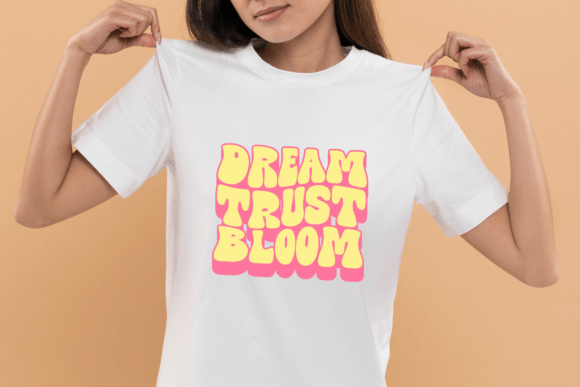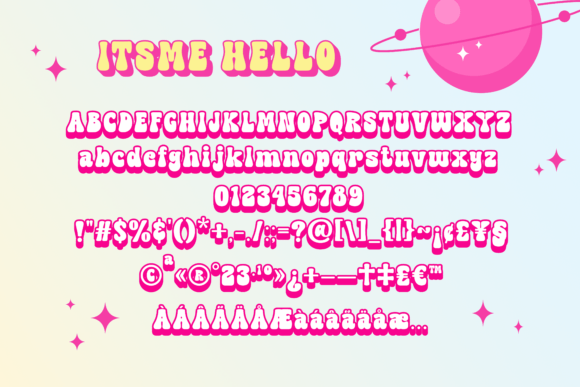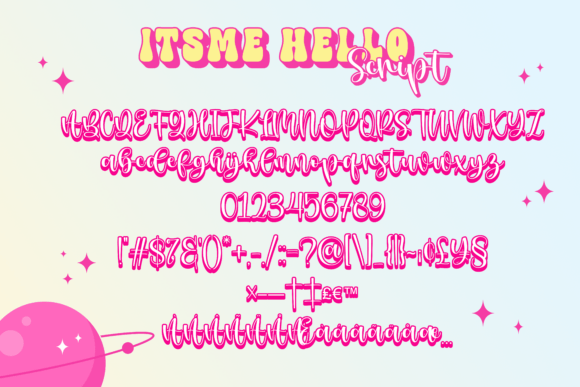
Introduction to Itsmehello Regular Font
As a designer, there’s nothing quite like that moment when all the elements of a creative project come together in perfect harmony. The color palette is spot on, the typography is on point, and the overall aesthetic is nothing short of stunning. And, of course, a high-quality font plays a huge role in achieving that magic. That’s where the Itsmehello Regular Font duo comes in – a dynamic pairing of a bold display font and an elegant script font that’s sure to elevate your designs to the next level.
Whether you’re working on a free download project or a paid design resource, the Itsmehello Regular Font is an invaluable asset in your design arsenal. With its bold, chunky style and elegant script aesthetic, this font duo offers a level of versatility that’s hard to find in a single font. Plus, with PUA encoding included, you can rest assured that your designs will look their best on any transparent background.
Key Features of Itsmehello Regular Font
- High-quality design suitable for creative projects, including logos, graphics, and other visual elements.
- Features a transparent background, allowing for easy integration with various design elements and backgrounds.
- Designed with a unique and modern aesthetic, making it an ideal choice for designers looking to add a touch of elegance to their creative projects.
- Resolution: Optimized for high-resolution displays, ensuring crisp and clear text rendering.
- Size: Includes multiple font sizes and weights, providing designers with flexibility and control over the design.
Honest Review: Itsmehello Regular Font
I recently had the opportunity to work with the Itsmehello Regular Font, and I must say it’s been a great addition to my design resources. As a designer, I’m always on the lookout for high-quality fonts that can elevate my creative projects.
Here are some things that work well with the Itsmehello Regular Font:
- ✨ High-quality glyphs and clear letterforms make it perfect for body text.
- ✨ Itsmehello Regular Font has a transparent background, allowing for seamless integration into any design project.
- ⚠️ The font is only available in a single weight, which may limit its versatility in certain design contexts.
- ⚠️ The Itsmehello Regular Font may not be the best choice for complex, multi-line typography due to its simplicity.
Overall, I’m impressed with the Itsmehello Regular Font and would recommend it to designers working on simple to moderate complexity projects. Its high-quality design and free download make it a valuable resource for any design project.
How to Use Itsmehello Regular Font
The Itsmehello Regular Font is a high-quality design resource available for free download. It’s perfect for adding a unique touch to your creative project.
Getting the Most Out of It
To get the most out of the Itsmehello Regular Font, use it in combination with other design elements to create a visually appealing and cohesive design. Experiment with different font sizes, colors, and backgrounds to find the perfect combination for your project.
The Itsmehello Regular Font is perfect for a variety of creative projects, including:
- Infographics and data visualization
- Website design and development
Yes, the Itsmehello Regular Font is designed to be highly legible on various backgrounds, including transparent ones. However, if you’re using a transparent background, please ensure that the font’s color and style are compatible with your design’s overall aesthetic.